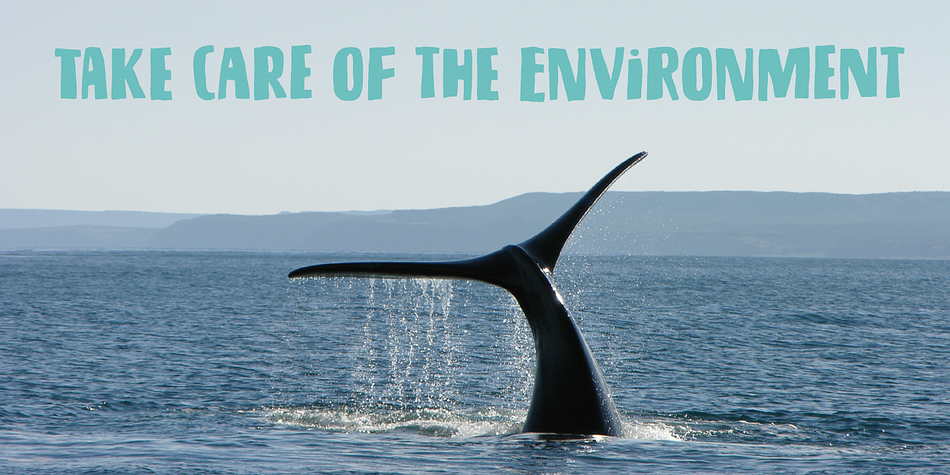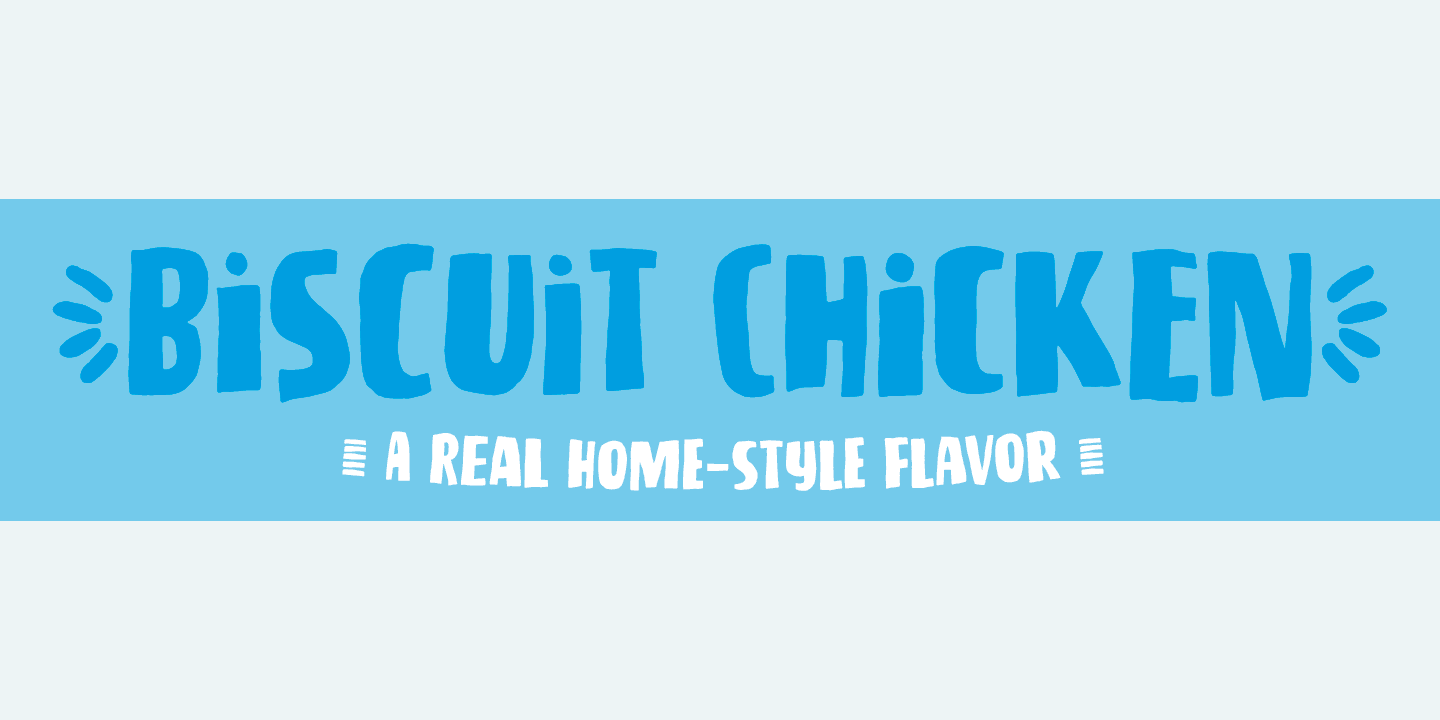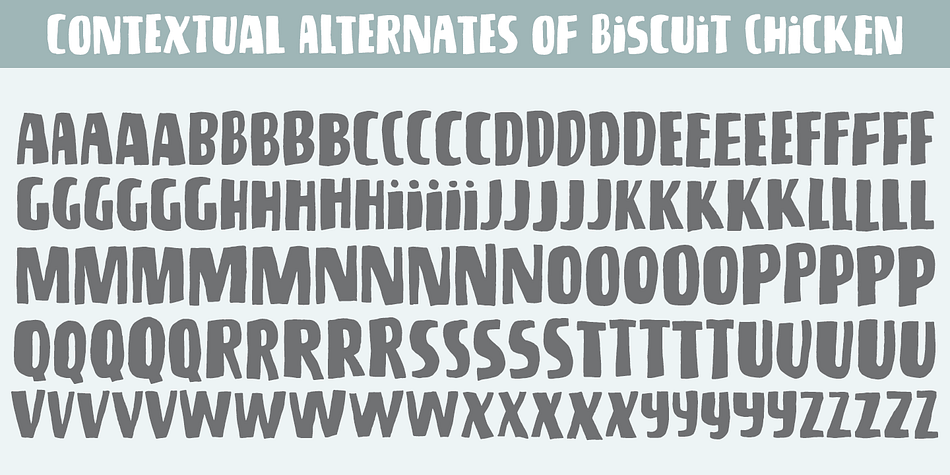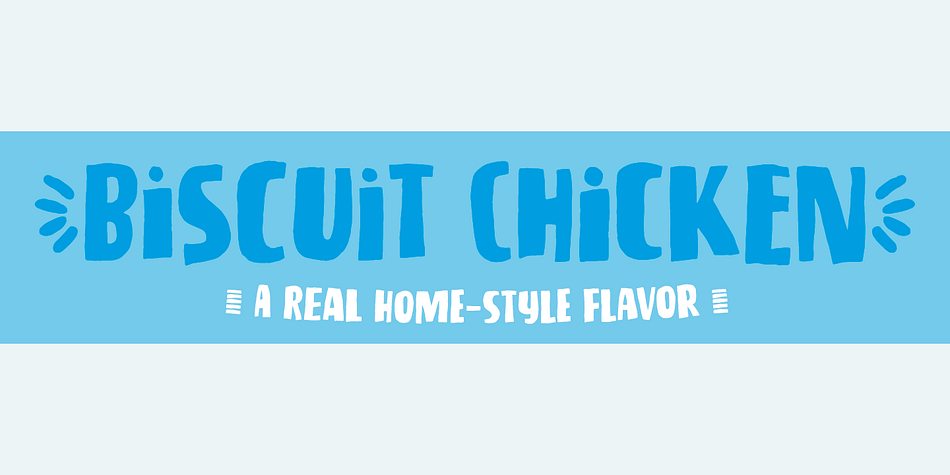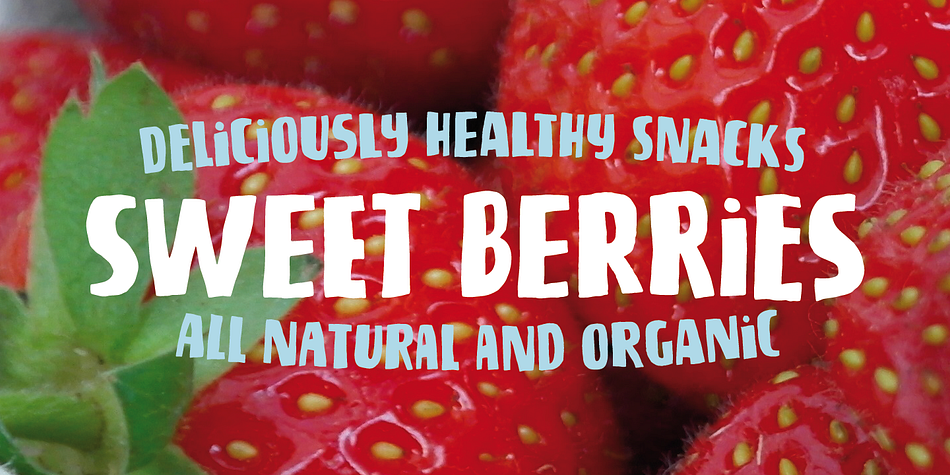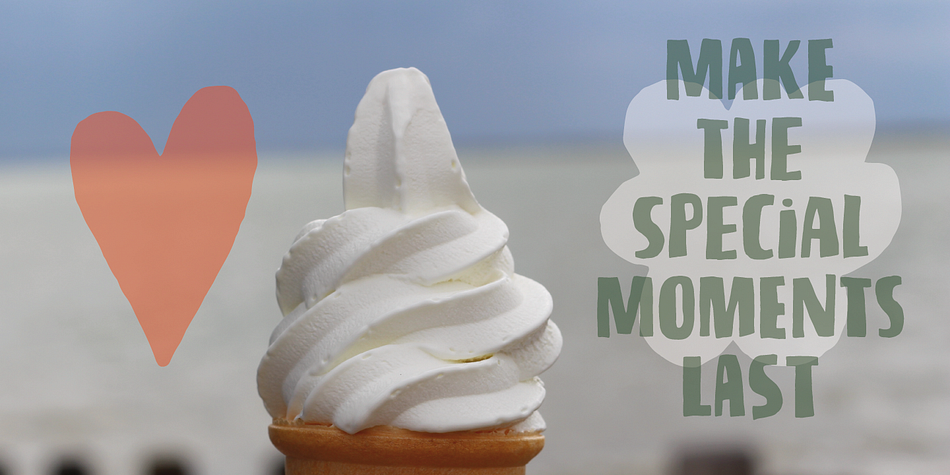
Biscuit Chicken is a dingbat and hand display font family. This typeface has two styles and was published by Pizzadude.dk.
Sweet, lovely and straight from the oven!